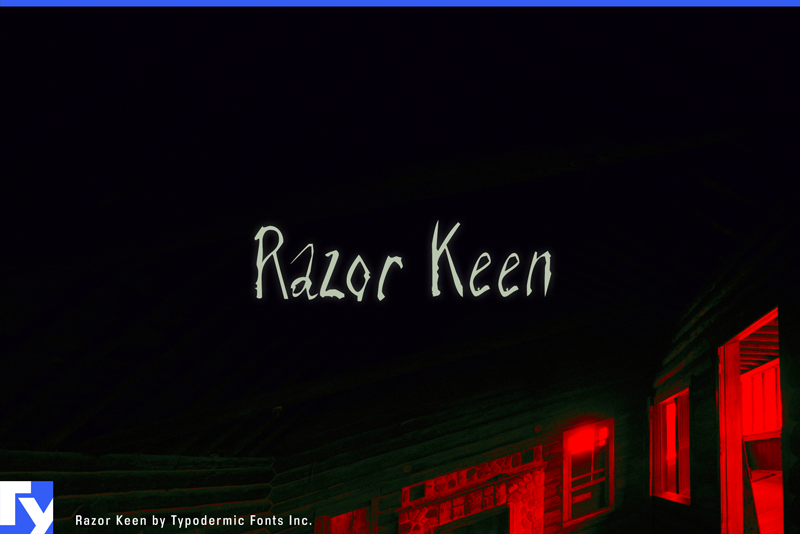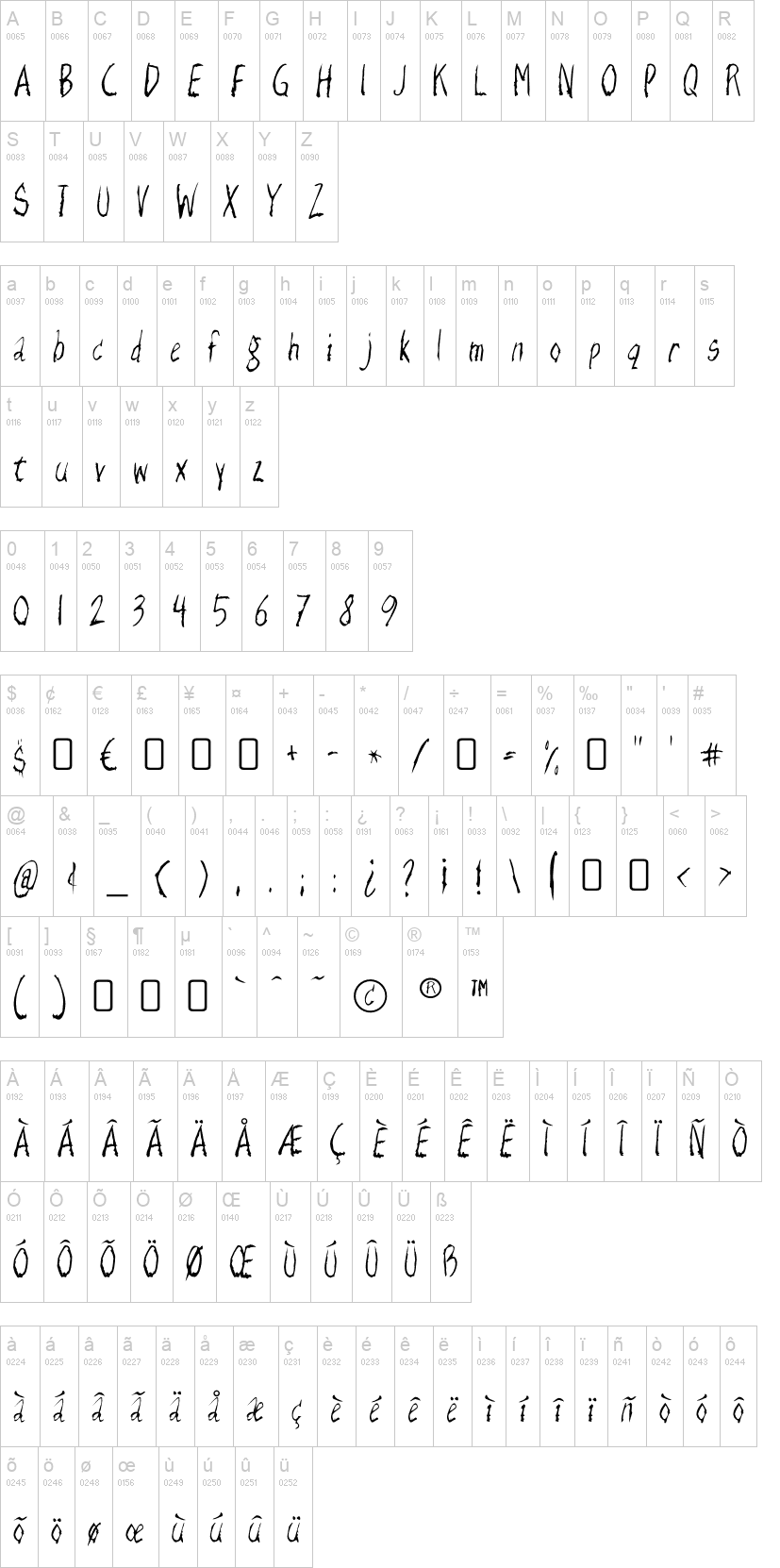
Note of the authorRazor Keen is a terrifying slasher cacography scribbled on newsprint using a mapping quill. Its frightening style will bring ghastly fear into your message. Some Latin-based European writing systems are supported, including the following languages. Afaan Oromo, Afar, Afrikaans, Albanian, Alsatian, Aymara, Basque, Bemba, Bikol, Breton, Cape Verdean, Creole, Catalan, Cebuano, Chamorro, Chavacano, Danish, Dawan, Dholuo, Dutch, English, Estonian, Faroese, Fijian, Filipino, Finnish, French, Frisian, Friulian, Galician, Genoese, German, Guadeloupean Creole, Haitian Creole, Hiligaynon, Icelandic, Ilocano, Indonesian, Irish, Italian, Jamaican, Kaqchikel, Kikongo, Kinyarwanda, Kirundi, Lombard, Low Saxon, Luxembourgish, Makhuwa, Malay, Ndebele, Neapolitan, Norwegian, Novial, Occitan, Papiamento, Piedmontese, Portuguese, Quechua, Rarotongan, Romansh, Sango, Saramaccan, Sardinian, Scottish Gaelic, Shona, Sicilian, Silesian, Slovak, Slovenian, Somali, Sotho, Spanish, Swahili, Swazi, Swedish, Tagalog, Tetum, Tshiluba, Tsonga, Tswana, Tumbuka, Uzbek (Latin), Venetian, Võro, Walloon, Waray-Waray, Wayuu, Xhosa, Yapese, Zapotec Zulu and Zuni.